Provan is a contemporary humanist sans serif with roots in calligraphy and incised letters. These timeless inspirations result in a typeface family that transcends fashion and adds a strong sense of authenticity to brands. The regular version of Provan has angled stem endings and oblique stress in curved shapes which add to its friendly and legible warmth. Provan Formal straightens these stroke endings to bring a more refined alignment of letters. The typefaces include swash capitals, small capitals, old style figures and special Celtic capital variants. The Inline version of Provan is useful for drop capitals, book covers and posters. Provan bucks the ubiquitous neutrality of geometric typefaces and exudes a sense of humanity, craftsmanship and warmth.
Creattion Font
Creattion is a delightful and cursive handwritten font. This radiant font will look gorgeous on a variety of design ideas. It will add a refined and romantic touch to each of your projects! This font is PUA encoded which means you can access all of the glyphs and swashes with ease!
Western Wildler Font
Western Wildler is a unique sans serif font with a vintage feel. It’s style make it great for creative projects, be it inspirational wall posters or for communicating your brand. This font is PUA encoded which means you can access all of the glyphs and swashes with ease!
Tarendra Naushad Font
Tarendra Naushad is a beautiful, refined and stylish script font. It looks lovely on wedding invitations, thank you cards, quotes, greeting cards, logos, business cards and every other design which needs a personalized touch.
Gastrax Font
Gastrax is a bold brushed display font. Rough textured yet readable, this font makes a great choice for a wide range of urban designs. Add it confidently to your projects, and you won’t be disappointed.
Caspiand Font
Caspiand is a modern handwritten font. Fall in love with its incredibly versatile style and use it to create gorgeous wedding invitations, beautiful stationary art, eye-catching social media posts and much more!
Enduros Font
Enduros is a trendy and bold display font, crafted to give your headlines and logotype projects a stylish touch. This font reads as strong, confident, and dynamic and can add tons of nostalgic character to your designs.
Westhoen Font
Westhoen is a fashionable brushed handwritten font. Not too thin and not too thick, balanced and varied, this font was designed to enhance the beauty of your projects.
Thinkers Font
Thinkers is a strong handwritten font with a bold and casual style. This handmade fonts comes with great legibility and readability. Each stroke is carefully drawn to display great flow and harmony with a natural look.
Brithania Script Font
Brithania is a spectacular and eye-catching handwritten font. Use this gorgeous and unique font to bring any DIY project to life! This font is PUA encoded which means you can access all of the glyphs and swashes with ease!
Signature Font
Signature is a ravishing, delicate and timeless handwritten font. It looks stunning on quotes, greeting cards, logos, business cards and every other design which needs a personalized touch. This font is PUA encoded which means you can access all of the glyphs and swashes with ease!
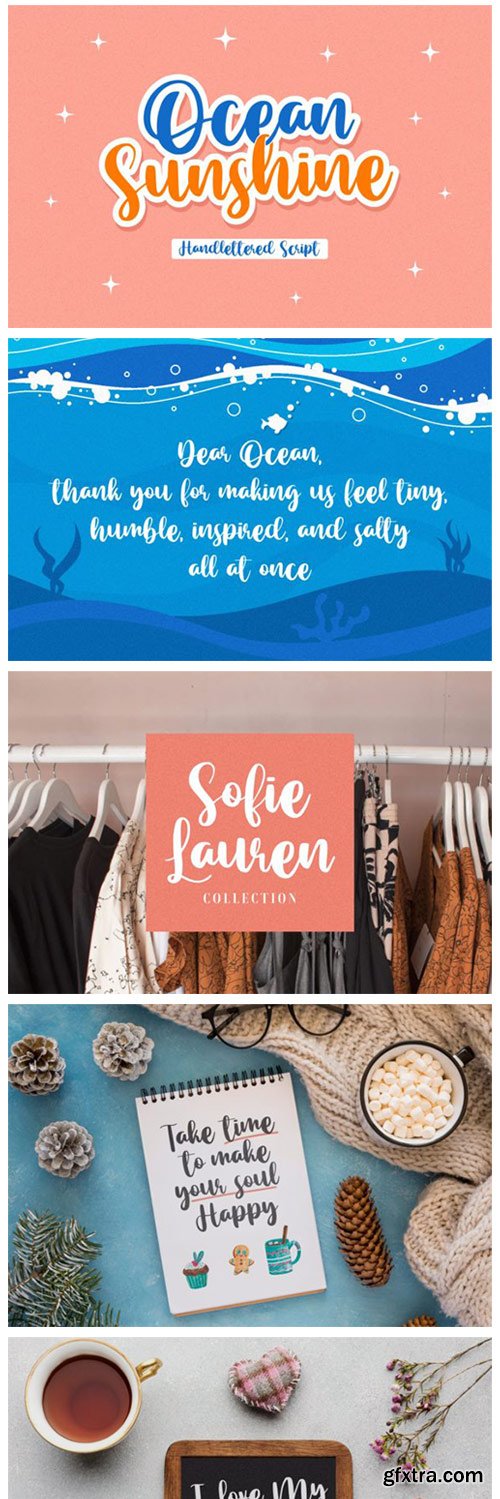
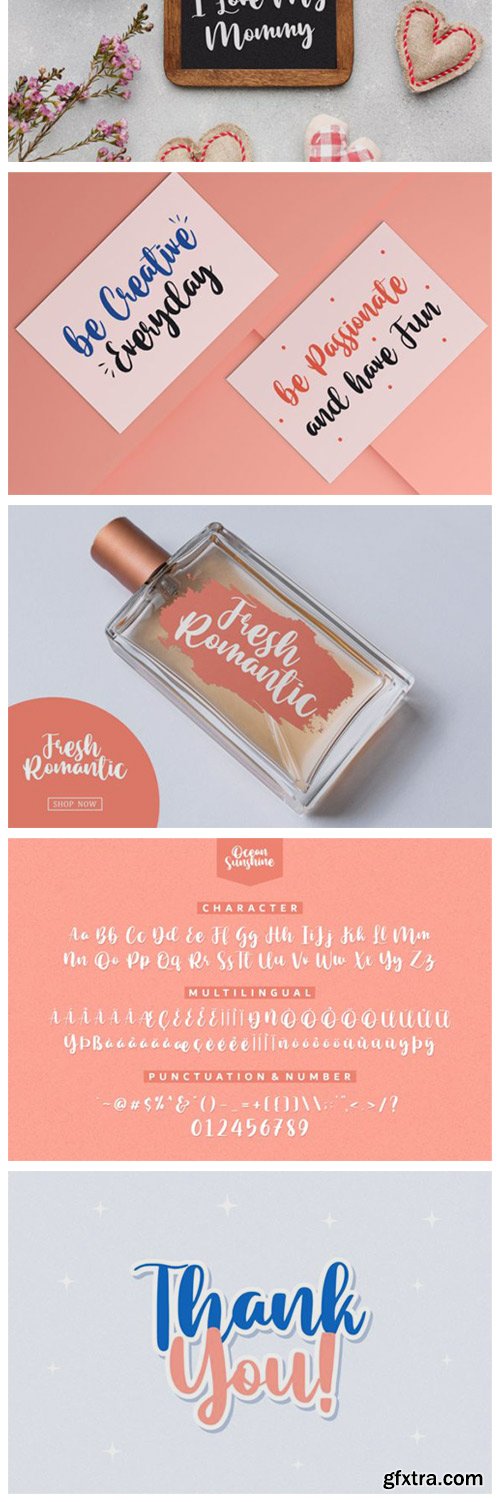
Ocean Sunshine Font
Ocean Sunshine is a romantic and round lettered script font. It has a sweet and gentle touch and it is the ideal choice for creating radiant designs.
Kawula Moeda Font
Kawula Moeda is a graceful and charming script font. It has beautiful and well balanced characters and as a result, it matches a wide pool of designs.
Boatsyard Font
Boatsyard is a lovely brushed handwritten font. It has a dazzling style and can be used for various purposes such as logos, wedding invitations, headings, t-shirts, letterhead, signage, labels, news, posters, badges and so much more.
Astringle Font
Astringle is a sophisticated handwritten font. Refined and delicate, this font will make each of your designs look gorgeous. This font is PUA encoded which means you can access all of the glyphs and swashes with ease!
Cotton Butter Font
Cotton Butter is a laid back and all round display font. It has a tasteful and friendly style, and as a consequence, it matches a wide range of casual designs.
Baltimare Font
Baltimare is a flawless and refined handwritten font. Its fine and flowing letters make this font a masterpiece. Fall in love with its all round style and use it to create radiant designs!
Arlitha Font
Arlitha is a brushed and sophisticated script font. It has well marked characters and it is the ideal choice for creating urban or trendy designs.
Funklay Font
Funklay is a casual and fashionable handwritten font. It has an all round style and it is incredibly charming. Funklay is PUA encoded which means you can access all of the glyphs and swashes with ease!
Chrystelle Font
Chrystelle is a thin and elegant handwritten font. Use this font to create outstading designs!